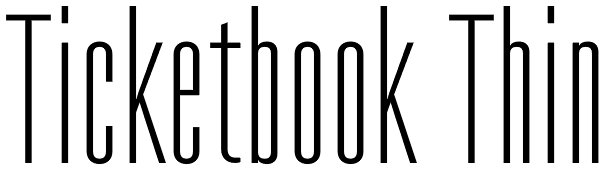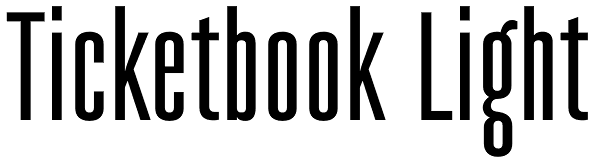
Ticketbook
Univers and Helvetica Compressed are most often used for movie posters, but they lack variants. Therefore I made a compressed family with seven weights for more versatility.